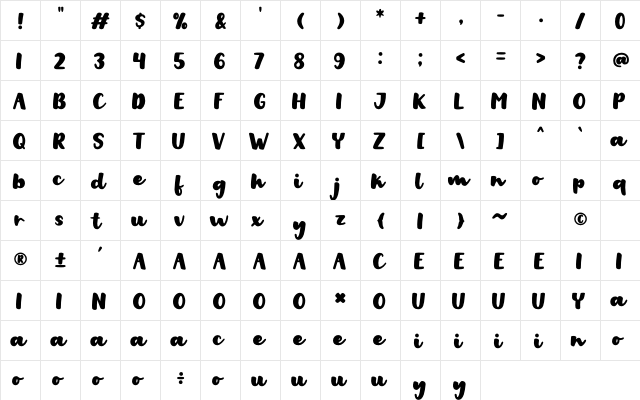
Childhood Regular
| Foundry | Nirmala Creative |
| Designer | Risma |
Design Context for Childhood Typeface
Childhood has an approachable, lighthearted character — its loose, expressive forms are well-suited to children's content, casual branding, and fun-first design.
Font Pairing: Pairs well with a rounded or humanist sans for body copy, maintaining the friendly tone without relying on Childhood to carry extended reading.
Pro Tip: Use Childhood at larger display sizes where its expressive character can land. Pair with a clean, simple sans for body copy to maintain readability.